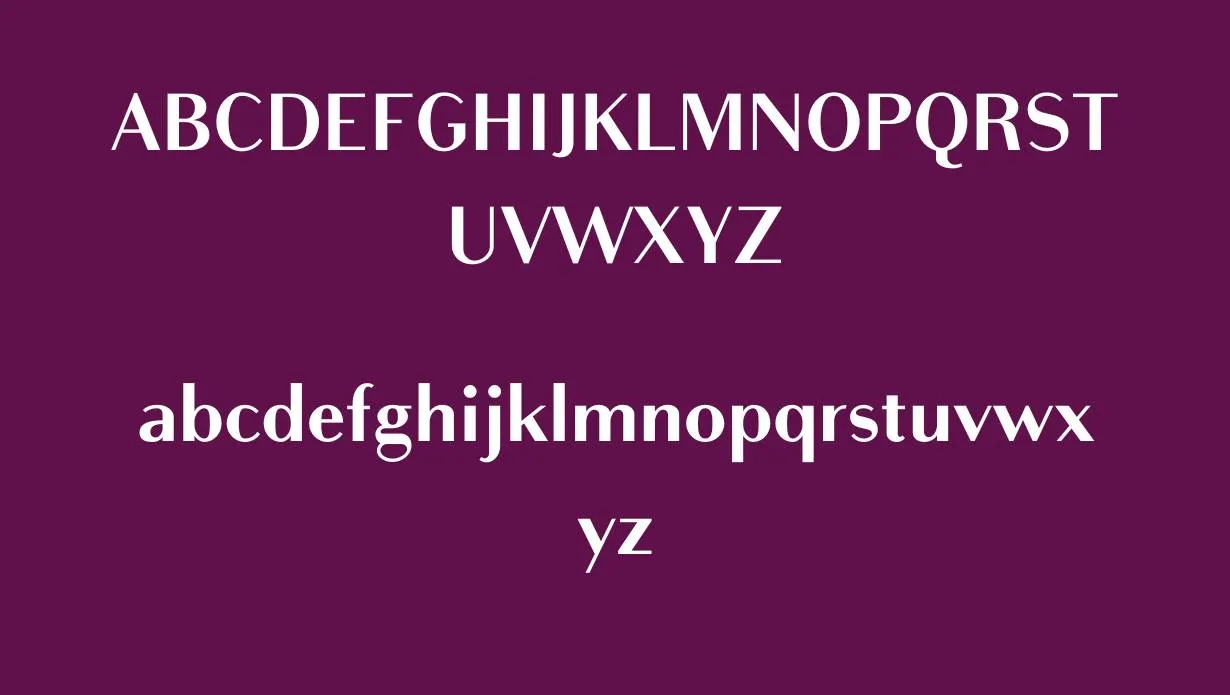
Bodoni sans text font is a Sans-Serif Font. The look of this font is very neat and clean. It has high readability with different amazing features. It is available in twenty different styles and weights which makes it perfect for use in various projects.
| Name | Bodoni Sans Text Font |
| Designer | J Foundry |